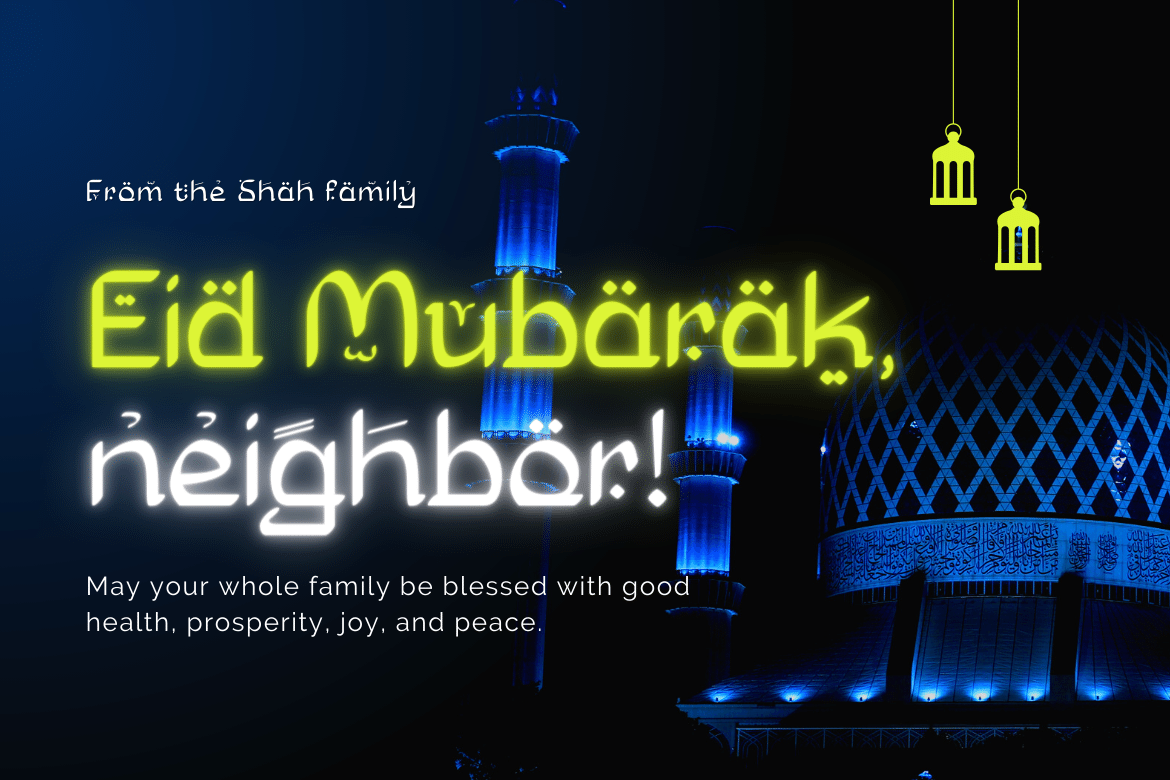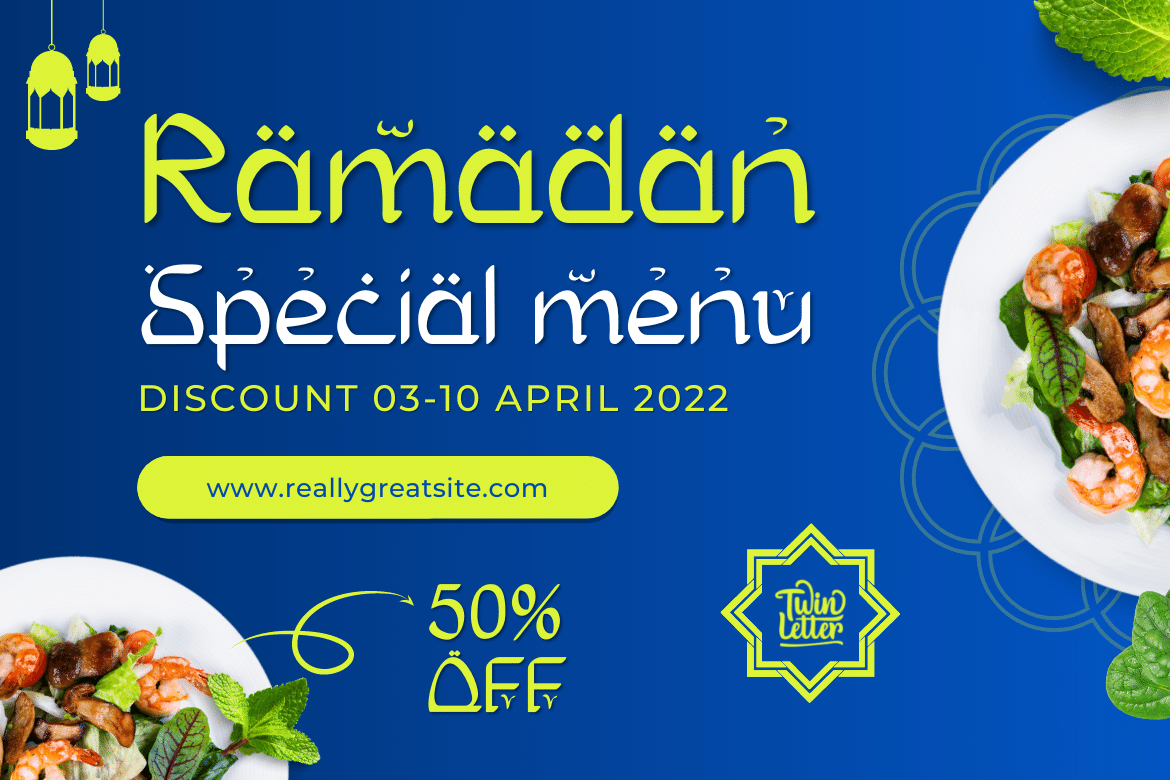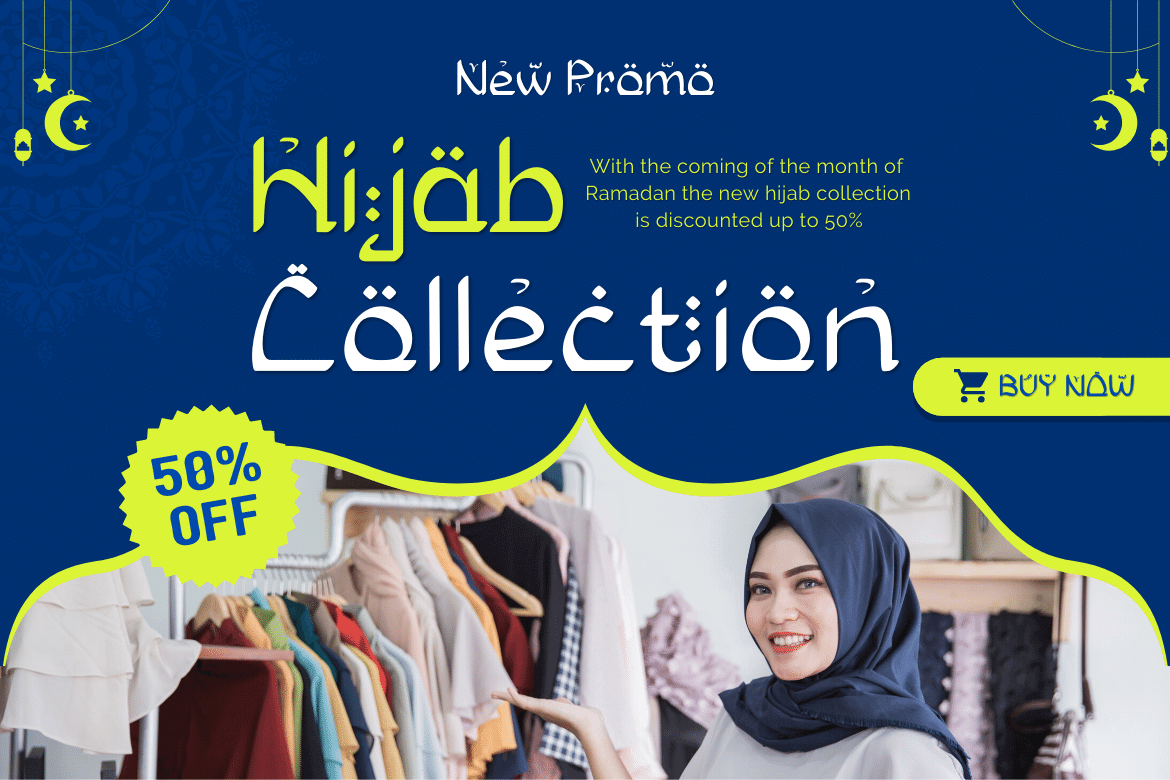
Zekat Font
Zekat Display Font
This premium Arabic style font is a great way to bring a new level of luxury to your designs. Whether you’re creating a logo for your website, magazine cover, packaging project, or other design work, our fonts are perfect for you. Our collection includes a wide variety of fonts from traditional to modern, with many different styles in between.